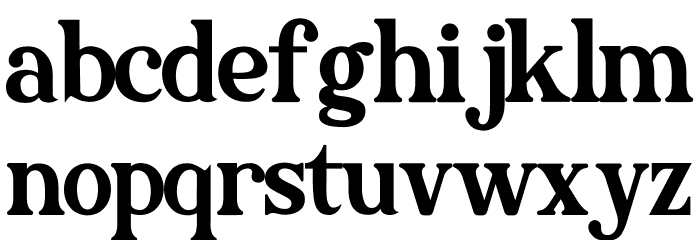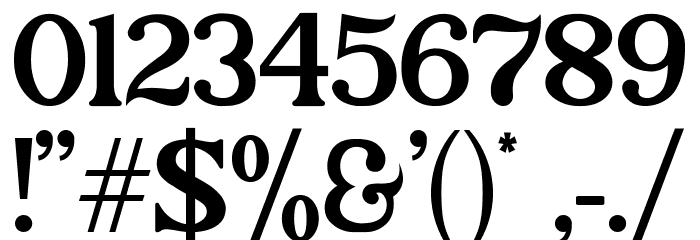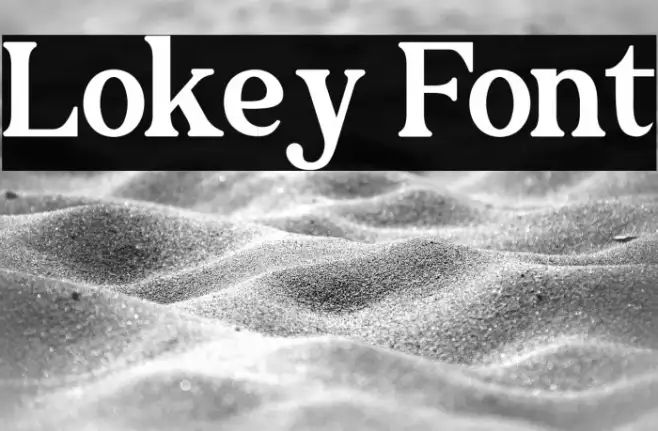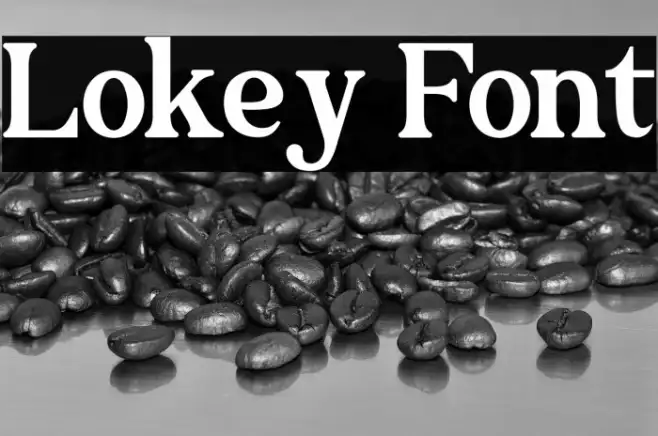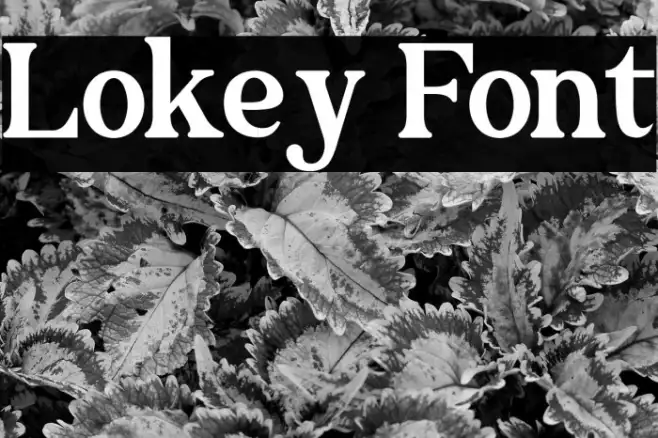
Lokey Font
This font features a classic serif style with strong, bold strokes and high contrast between thick and thin lines. The serifs are pronounced, giving it a traditional and authoritative appearance. The uppercase letters are well-proportioned, while the lowercase letters maintain a consistent flow with rounded edges. The numerals are clear and distinct, making them easily readable. Special characters are elegantly designed, complementing the overall aesthetic. This font exudes a sense of sophistication and reliability, making it suitable for formal and professional applications.
A classic serif font with bold strokes and high contrast, exuding sophistication.
- Proposed Projects: Ideal for book covers, formal invitations, corporate branding, and editorial design.
- Overall Style: Classic